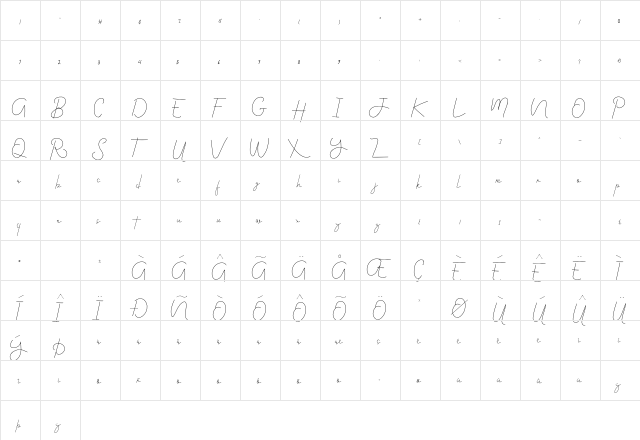
Kanya Regular
| Foundry | Edric Studio |
| Designer | Saila Nurissalma & Suci Anita |
Design Context for Kanya Typeface
Kanya takes a measured approach to typography — its balanced proportions and neutral character make it a reliable workhorse for both digital and print work.